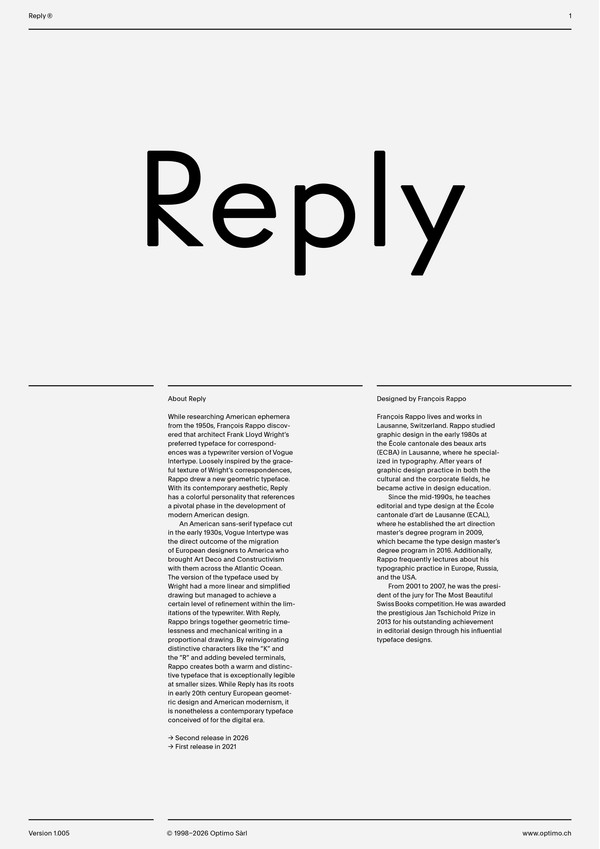
Reply
Case Sensitive Forms
This function formats the text in uppercase and adjusts spacing between all capital letters. It also applies the ‘Case Sensitive Forms’ feature which replaces certain characters with alternates that are better suited for all capital text, especially related to punctuation.
Contextual Alternates
This feature adapts the position of a glyph after its surrounding context. For instance, a dash placed between two uppercase letters or numbers will be replaced by an uppercase version of the dash, slightly higher. This feature is usually active by default in Adobe applications.
Alternate letters
This feature replaces glyph(s) with stylistic alternate(s).
Alternate a
Alternate e
Alternate j
Alternate K k
Alternate t
Alternate M
Alternate Q
Alternate R
Alternate fractions
Tabular Lining Figures
Based on the proportions of the capitals, lining figures have an invariable height. With the combination of the tabular spacing format, the width of each numeral is uniformized. This feature is useful when numerals need to all lined up. It facilitates the reading of numbers set within columns or tables. As some applications don’t have access to this feature, proportional figures are set as the default choice.
Proportional Oldstyle Figures
Based on the design of the lowercase, oldstyle figures have varying ascenders and descenders. Like most of the letters, each number has an appropriate width based on its shape. The combination of oldstyle figures with proportional setting generate numerals perfectly adapted for text.
Tabular Oldstyle Figures
Based on the design of the lowercase, oldstyle figures have varying ascenders and descenders. With the combination of the tabular spacing format, the width of each numeral is uniformized. This feature is useful when numerals need to all lined up. It facilitates the reading of numbers set within columns or tables.
Fractions
With this feature, any numbers separated by a slash will automatically turn into a fraction. To fit in fraction configuration, numerals have been designed smaller and their weights have been adjusted to suit the typeface.
Lowercase math symbols
This feature activates alternate lowercase positioning of mathematical symbols.
This feature replaces any letter following a numeral with its matching superior letters. French language uses the ordinal indicators such as ‘er’ for 1er premier, while Spanish, Portuguese and Italian require the feminine and masculine ordinals ‘a,’ ‘o’ for 1º, 1ª. Ordinals are designed to match the weight of the typeface.
Slashed Zero
Originally created to avoid the confusion between the ‘0’ and the ‘O’, this feature substitutes all zeros in a selected text by a slashed form of the zero.
An American sans-serif typeface cut in the early 1930s, Vogue Intertype was the direct outcome of the migration of European designers to America who brought Art Deco and Constructivism with them across the Atlantic Ocean. The version of the typeface used by Wright had a more linear and simplified drawing but managed to achieve a certain level of refinement within the limitations of the typewriter. With Reply, Rappo brings together geometric timelessness and mechanical writing in a proportional drawing. By reinvigorating distinctive characters like the “K” and the “R” and adding beveled terminals, Rappo creates both a warm and distinctive typeface that is exceptionally legible at smaller sizes. While Reply has its roots in early twentieth-century European geometric design and American modernism, it is nonetheless a contemporary typeface conceived of for the digital era.